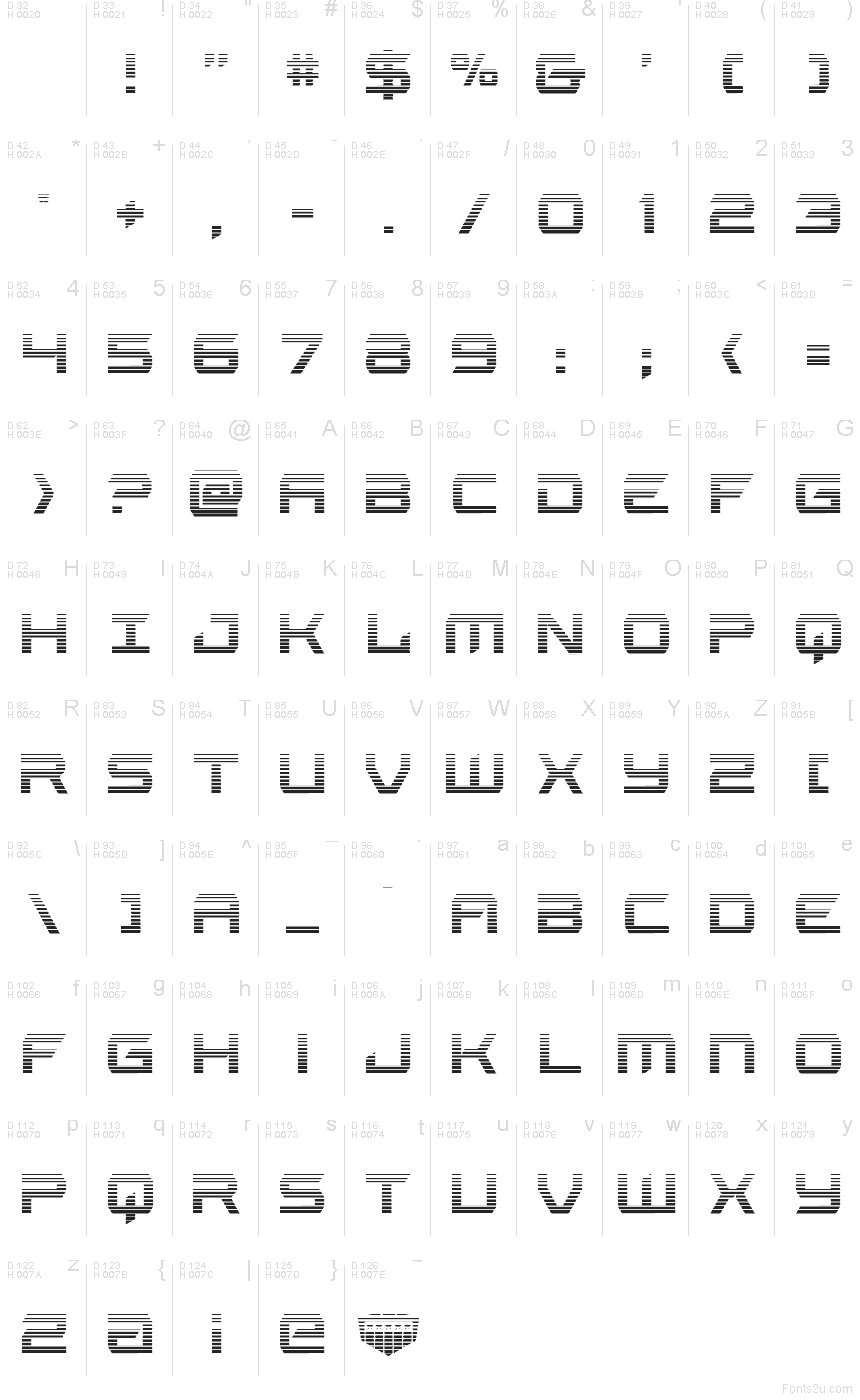
Jurist Dire Gradient
Jurist Dire Gradient font by Iconian Fonts is a free futuristic display typeface that looks like it’s been sliced by a laser and scanned back onto the screen. Each letter is built from tight horizontal bands, creating a sleek gradient effect that feels both digital and kinetic, as if the text is vibrating with signal lines. The tall, squared forms read cleanly even with the striped texture, giving you a strong sci-fi presence without losing legibility.
Using Jurist Dire Gradient, you can instantly push titles into cyberpunk territory—think gaming logos, tech conference graphics, synthwave or EDM covers, sci-fi posters, streaming overlays, or UI splash screens. This free font shines at large sizes where the stripe pattern can breathe and catch light. Pair it with a simple geometric sans for body copy, keeping Jurist Dire Gradient as the high-impact headline voice.